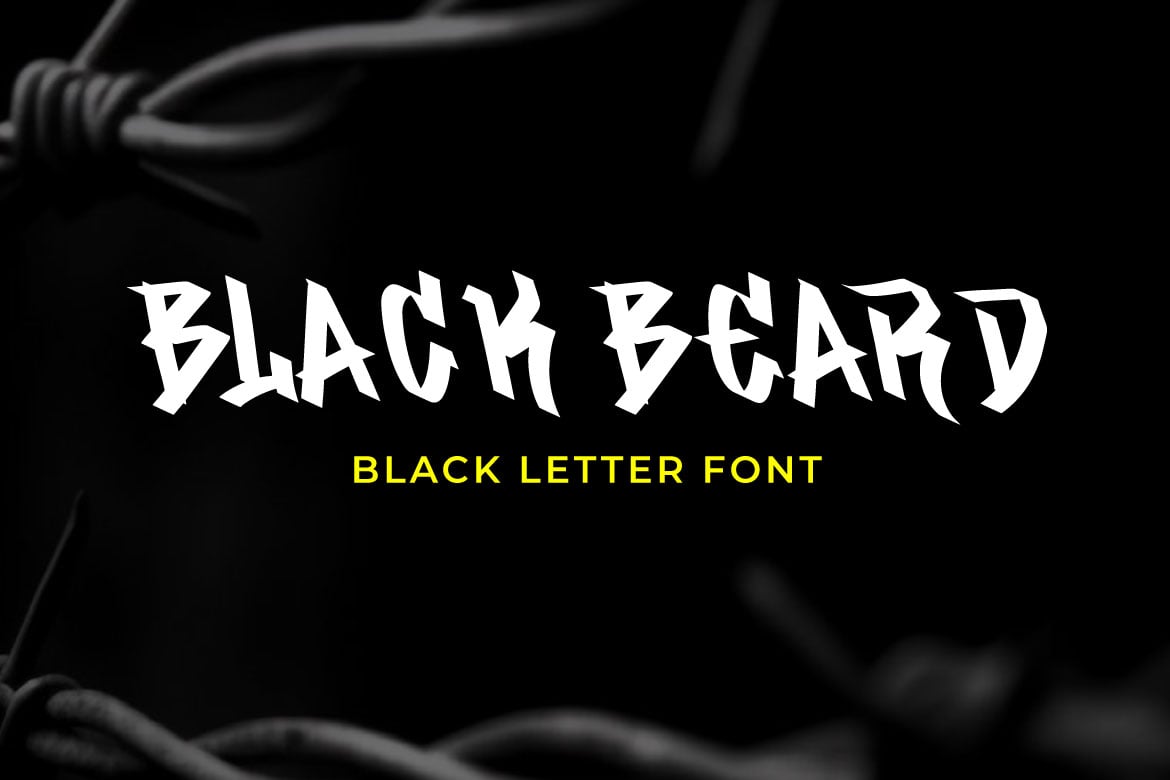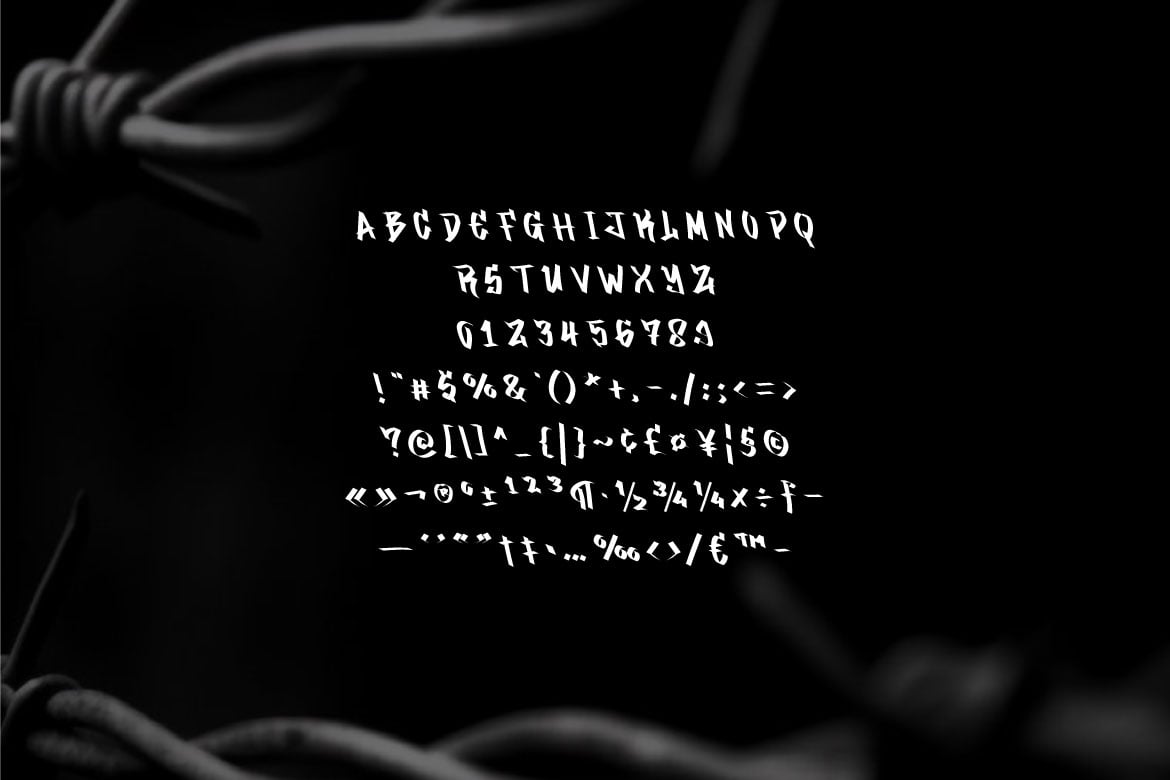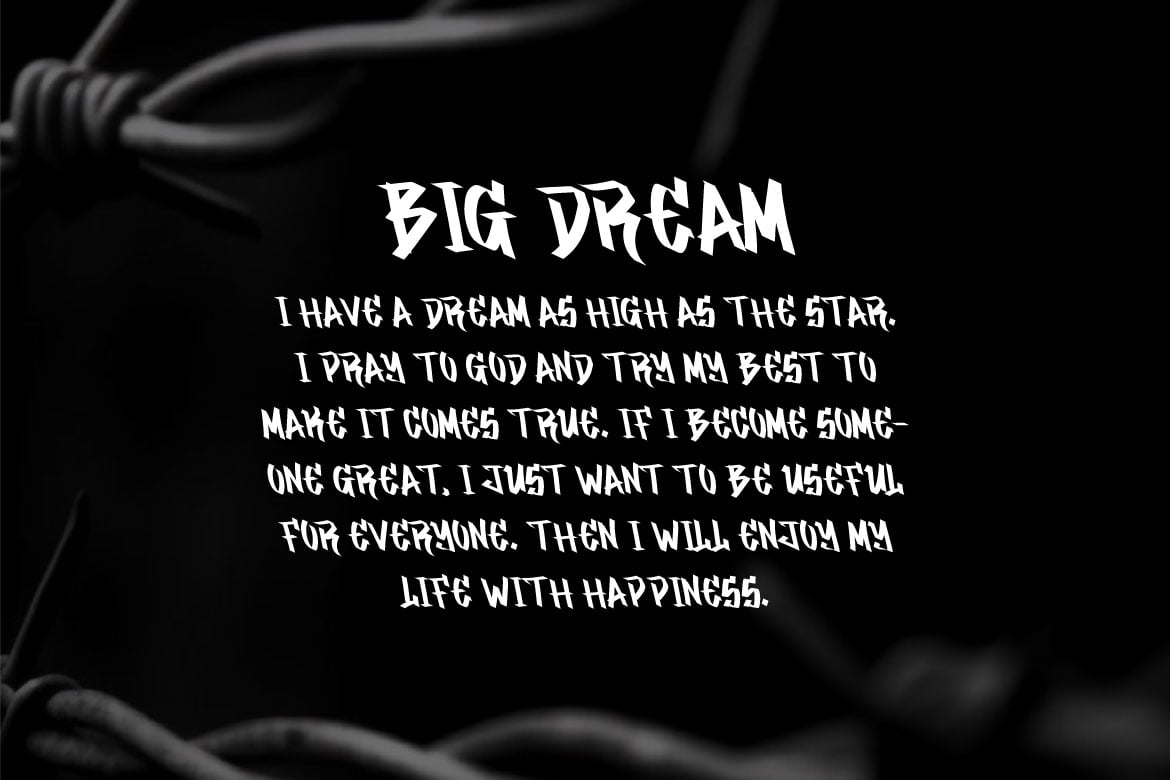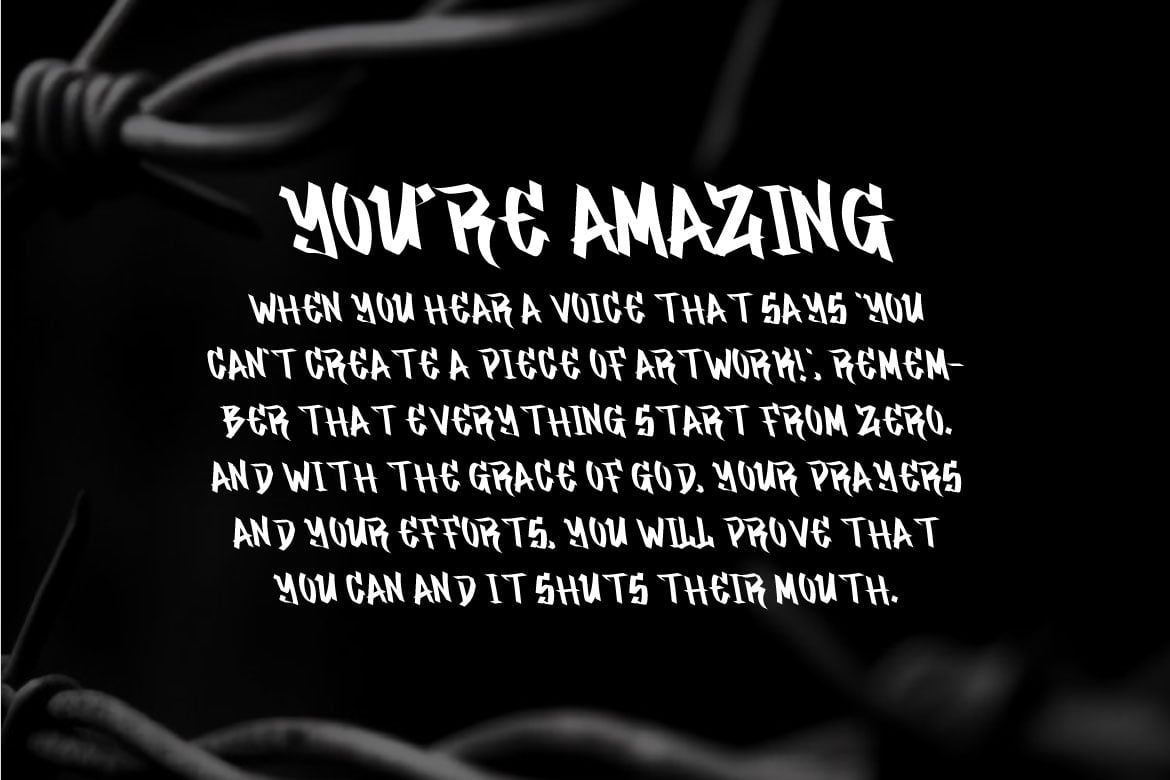
Black Beard – Black Letter Font
Hello! Black Beard is a black letter display font.
Black Beard can be used in any works such as comic book, poster, school, flyer, book title, advertisement, social media content, logo and many more.